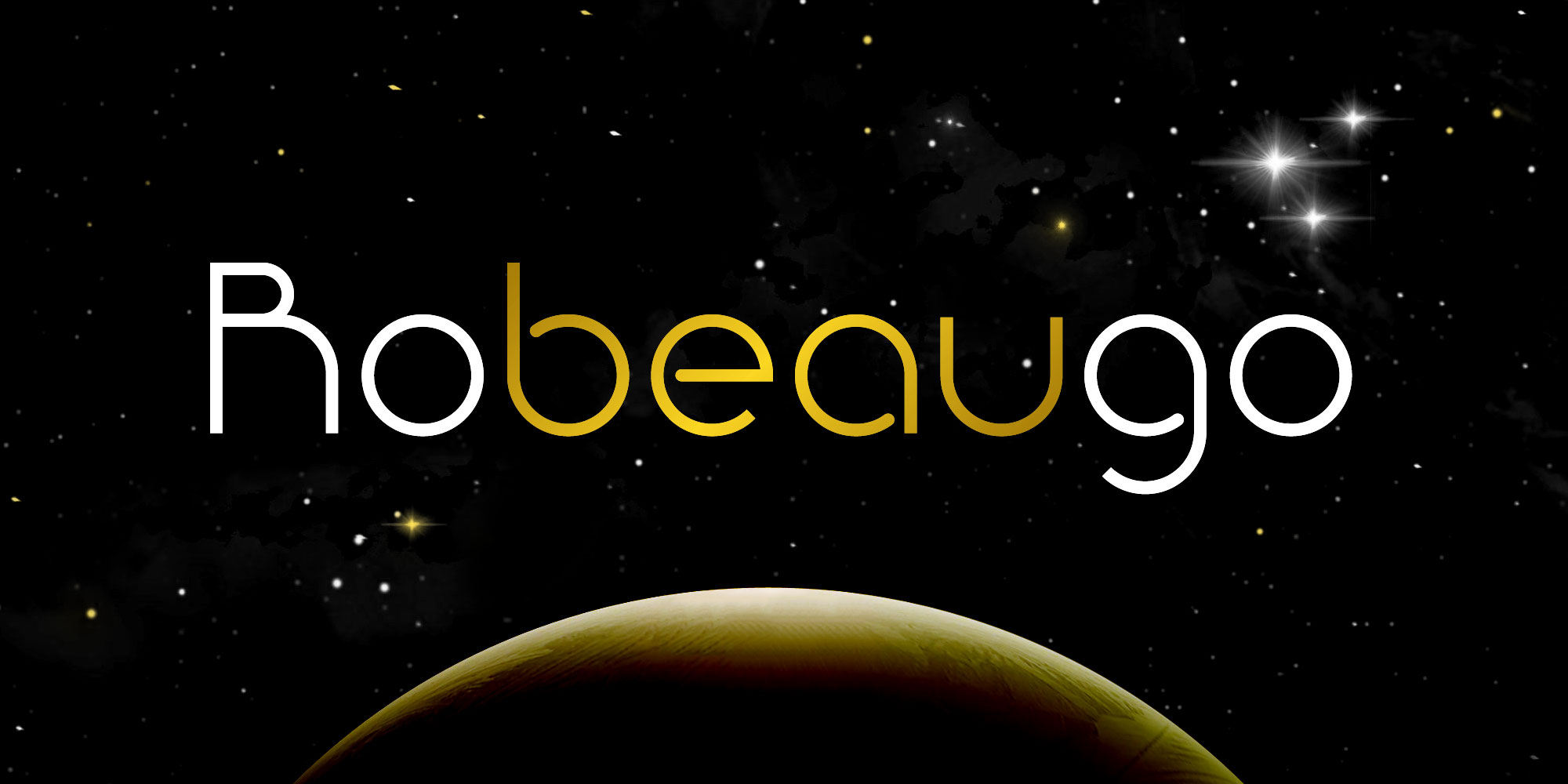
Robeaugo Font is perfect for Art Deco hotel branding, vintage fashion campaigns, 1920s themed events, luxury jewelry advertising, classic cocktail lounge signage, high-end perfume packaging, and sophisticated retro marketing that celebrates Jazz Age elegance.
This font is exciting because it captures the glamorous sophistication of the Roaring Twenties, featuring elegant Art Deco letterforms that embody luxury, refinement, and the timeless appeal of classic American prosperity while maintaining contemporary functionality.
The Robeaugo Font family includes light, regular, and bold weights with decorative variants, offering uppercase and lowercase letters, Art Deco ornaments, luxury numerals, elegant punctuation marks, and period-appropriate decorative elements that celebrate 1920s design heritage.
Luxury designers consistently choose Robeaugo Font Free Download for projects requiring authentic Art Deco character and sophisticated vintage appeal. This magnificent typeface transforms modern communications into elegant statements of timeless luxury that immediately resonate with audiences seeking refined sophistication and classic glamour. The font's prestigious character makes it exceptionally effective for high-end hospitality brands, luxury fashion houses, and premium lifestyle products where Jazz Age elegance and modern luxury must be seamlessly combined. Its historical authenticity bridges 1920s glamour with contemporary luxury marketing, making it invaluable for brands celebrating classic American prosperity and sophisticated entertainment culture. The meticulously crafted letterforms maintain their Art Deco elegance across digital platforms and premium packaging, ensuring consistent brand recognition and luxury positioning. Whether you're developing luxury hotel brand identities, creating premium fashion campaigns, or designing sophisticated entertainment venues, this typeface provides the authentic voice and visual prestige that distinguishes genuine luxury brands from mass-market competitors, establishing immediate credibility among affluent audiences who appreciate authentic Art Deco craftsmanship and the enduring appeal of Jazz Age sophistication in contemporary luxury experiences.